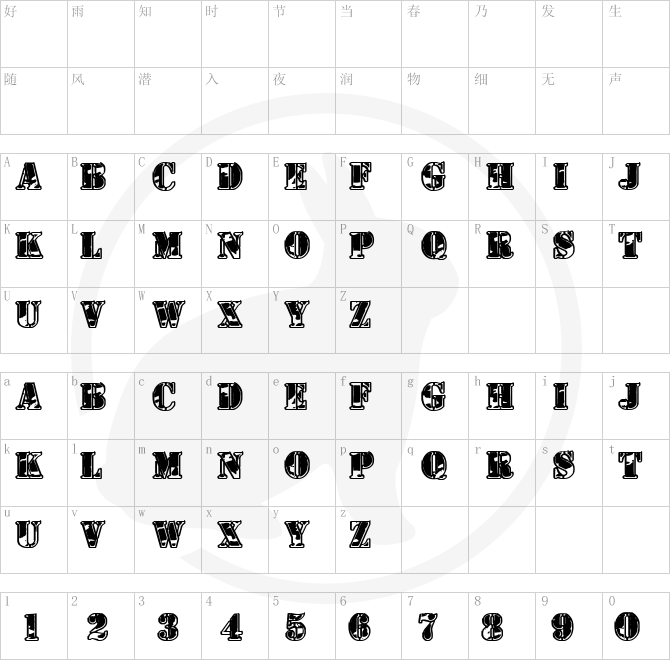
- Font Name:1st Cav II
1st-Cav-II.ttf is a very beautiful artistic font, 1st-Cav-II.ttf is widely used in the design and printing of various books and pictures,1st-Cav-II.ttf has a strong visual impact,1st-Cav-II.ttf is a commonly used font in newspapers, magazines and books, and is used in posters, e-commerce Poster design, store design, logo design, font design and other fields.1st-Cav-II.